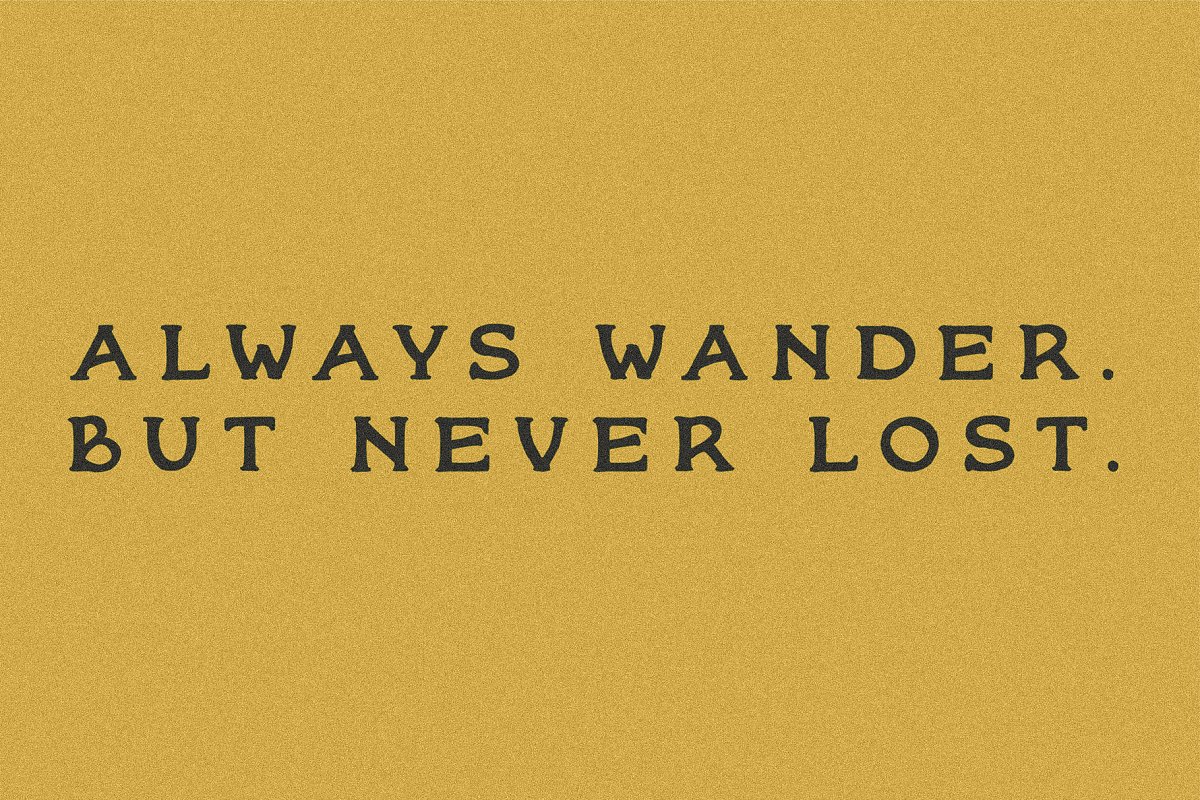
About the Roony I A Handmade Serif Font
Roony is certified organic and it’s letter forms are locally sourced, This font is ethically made and you guessed it — is free range, Comes with full uppercase alphabet, numbers, and basic punctuation, Find this font and dozens more on my website: taylorpenton, com/fonts